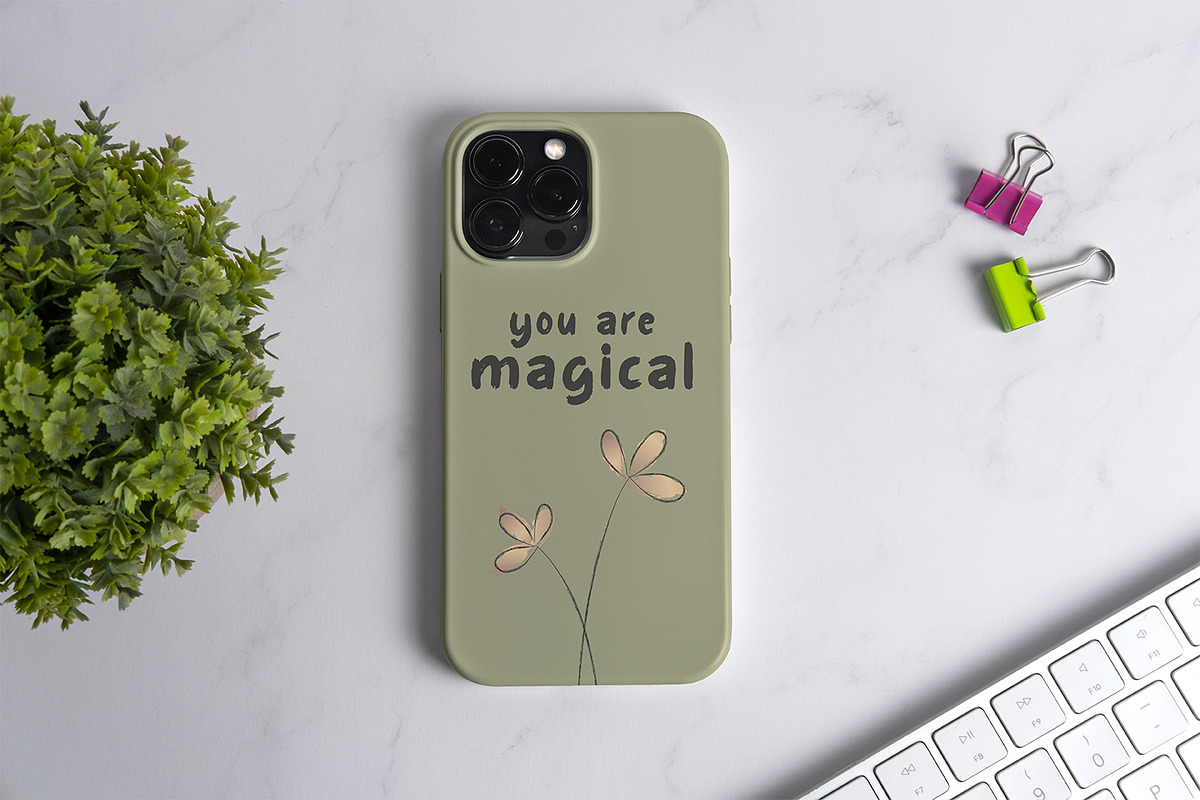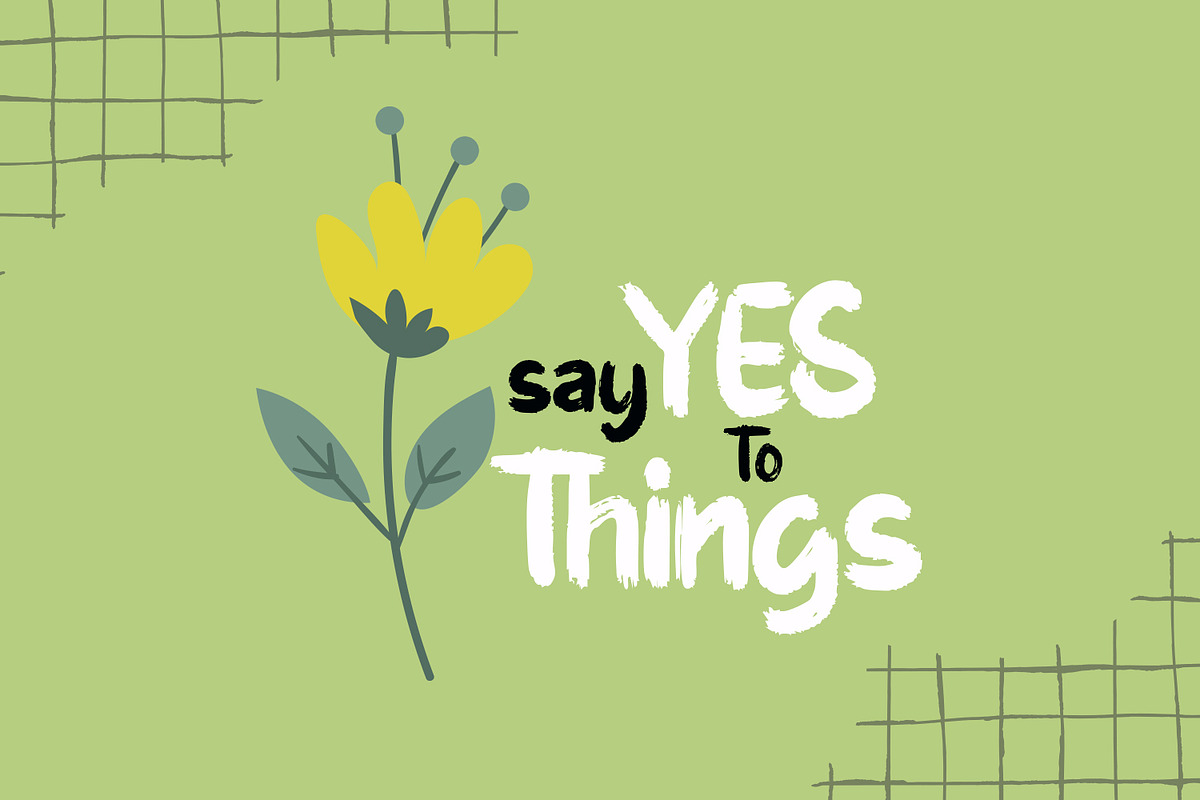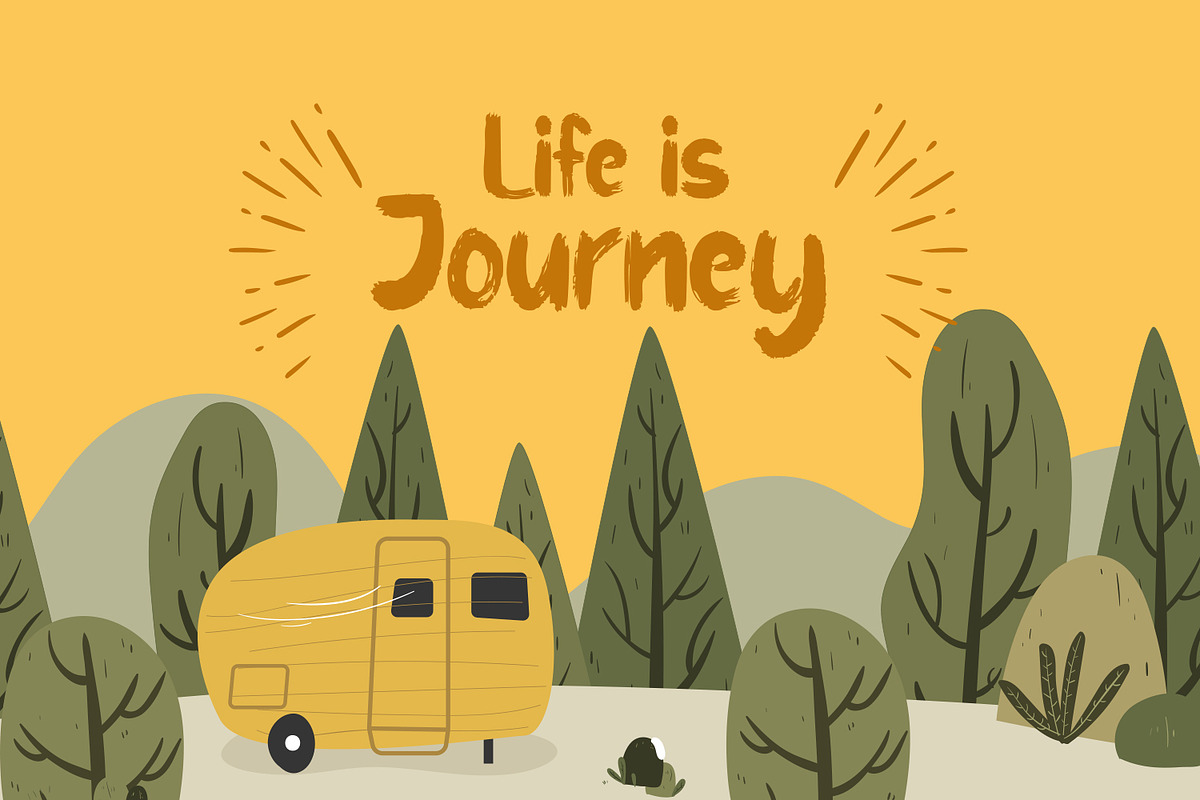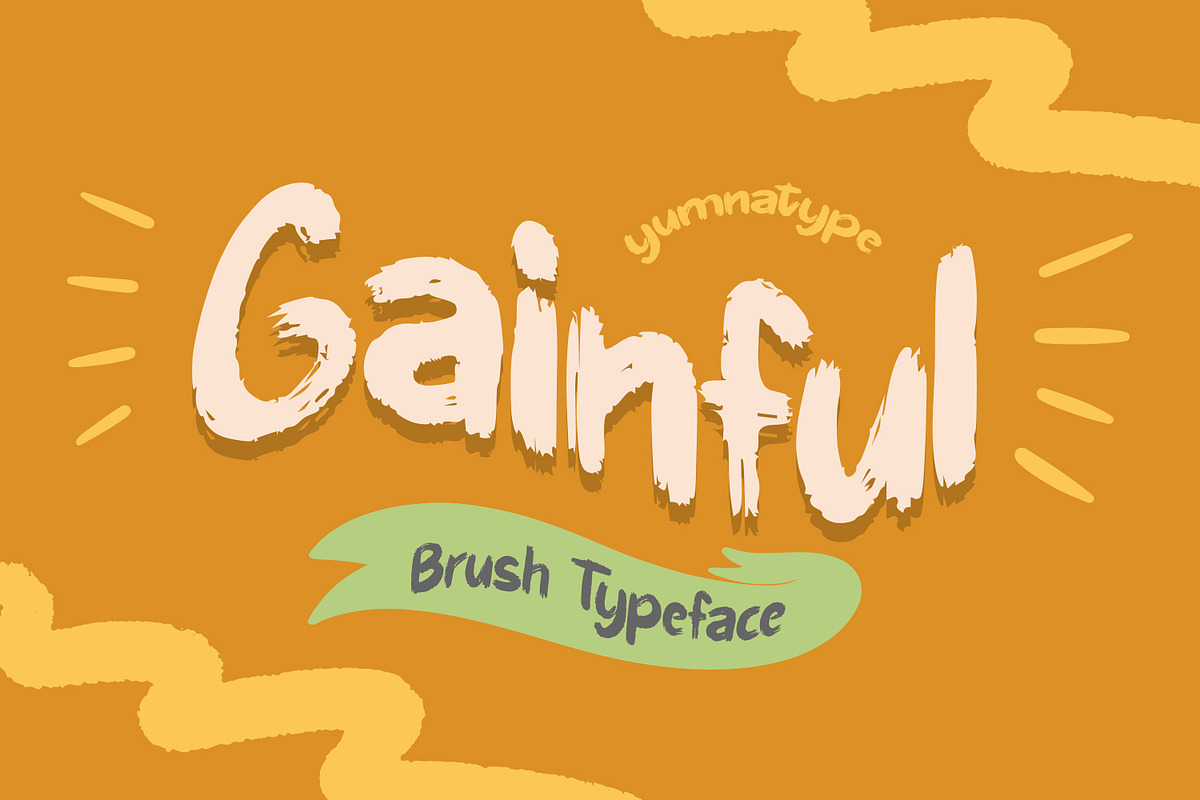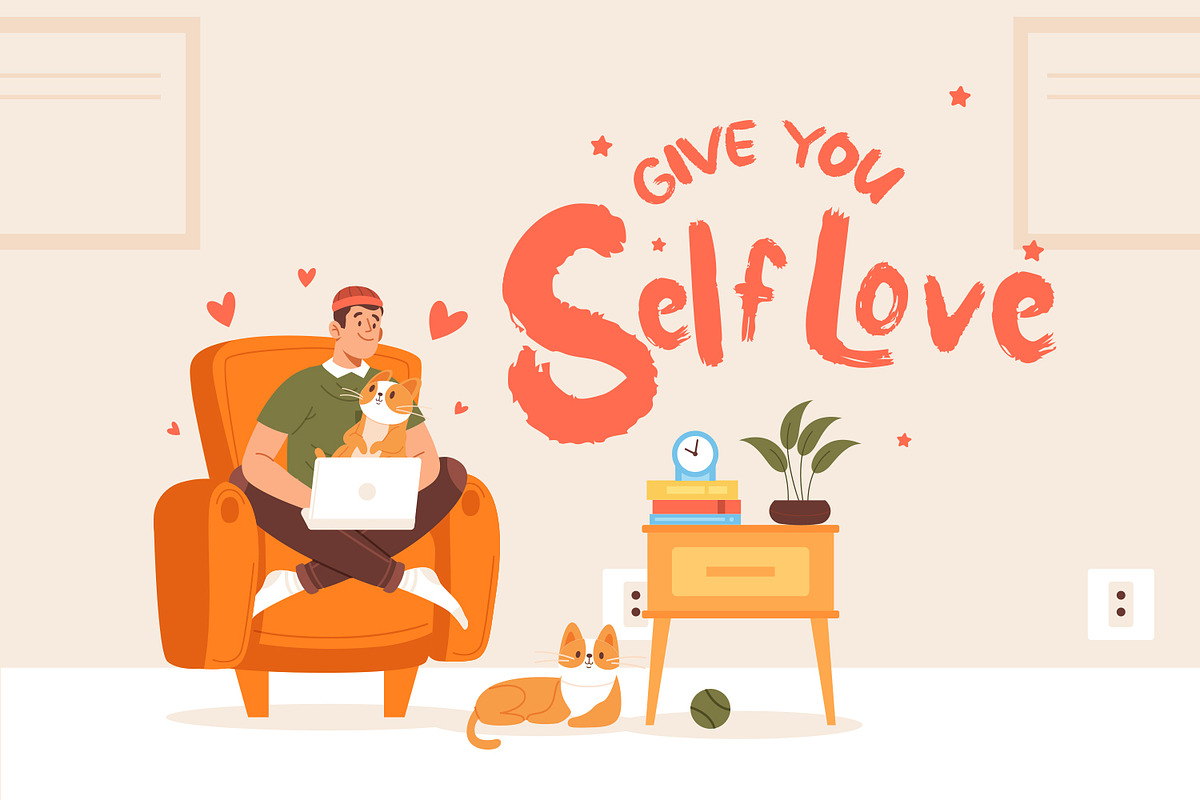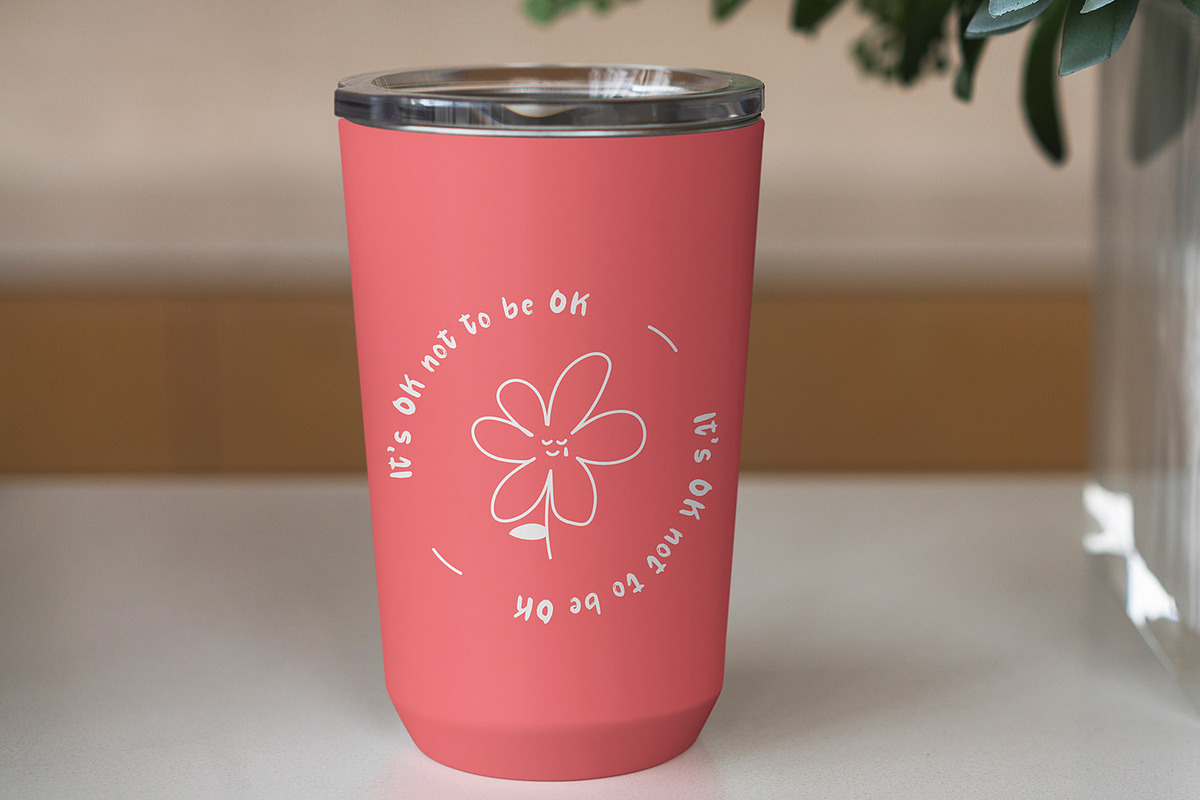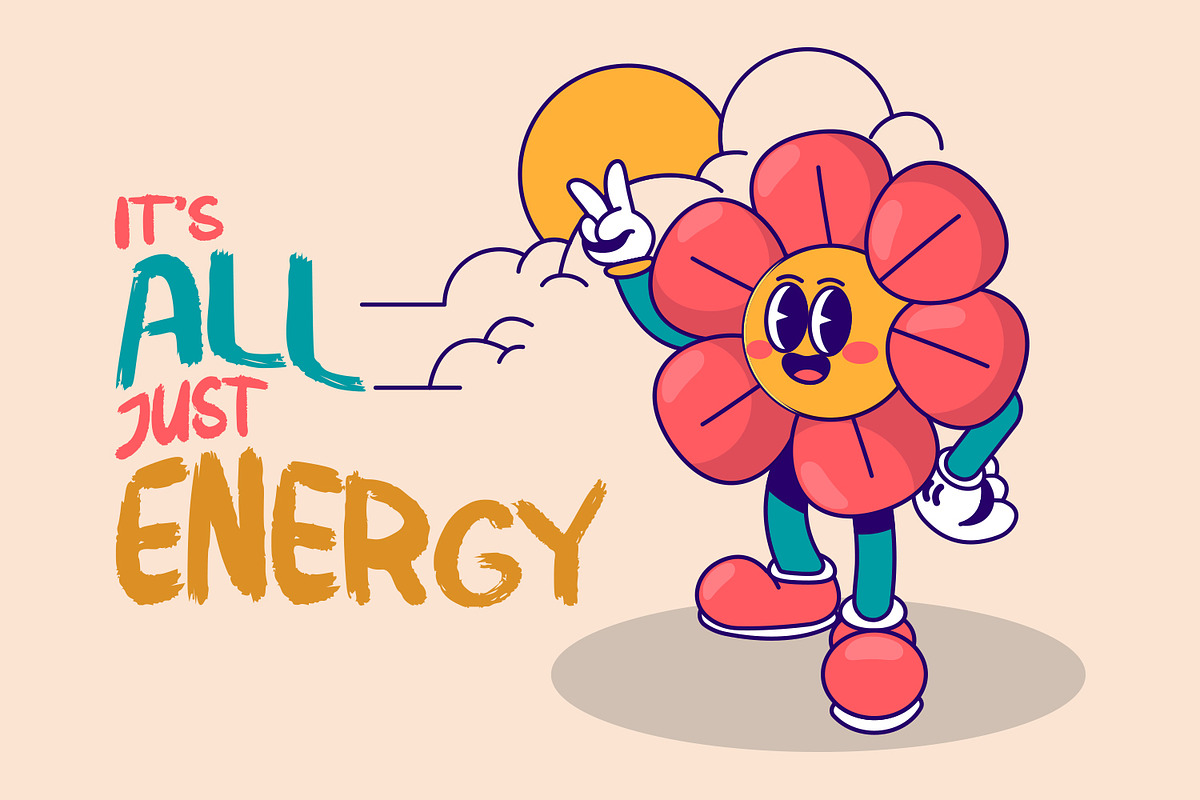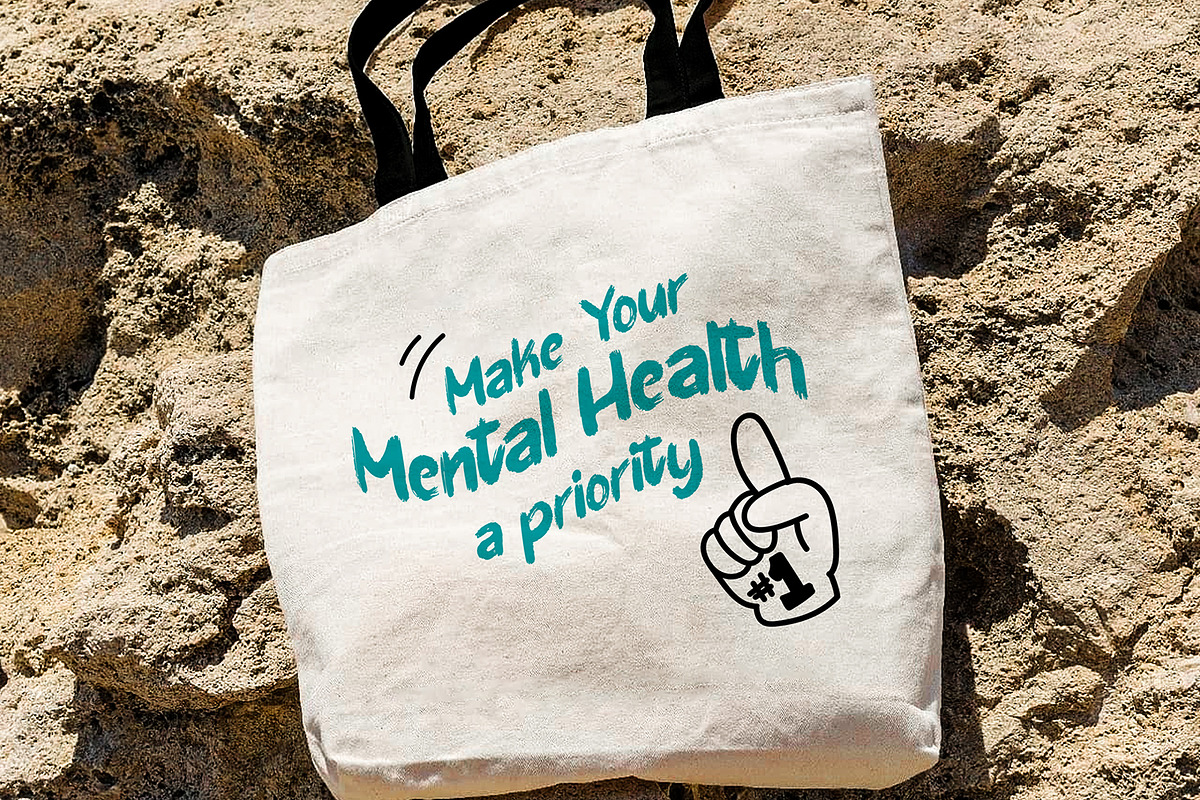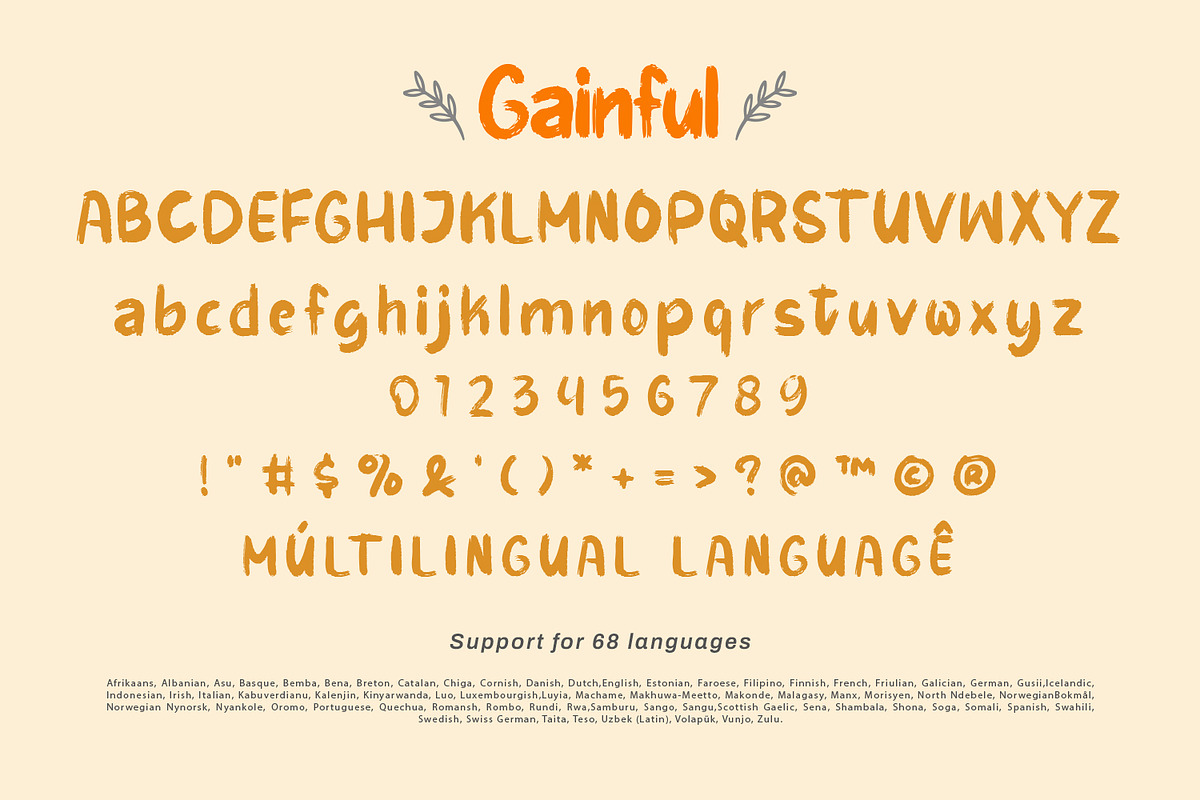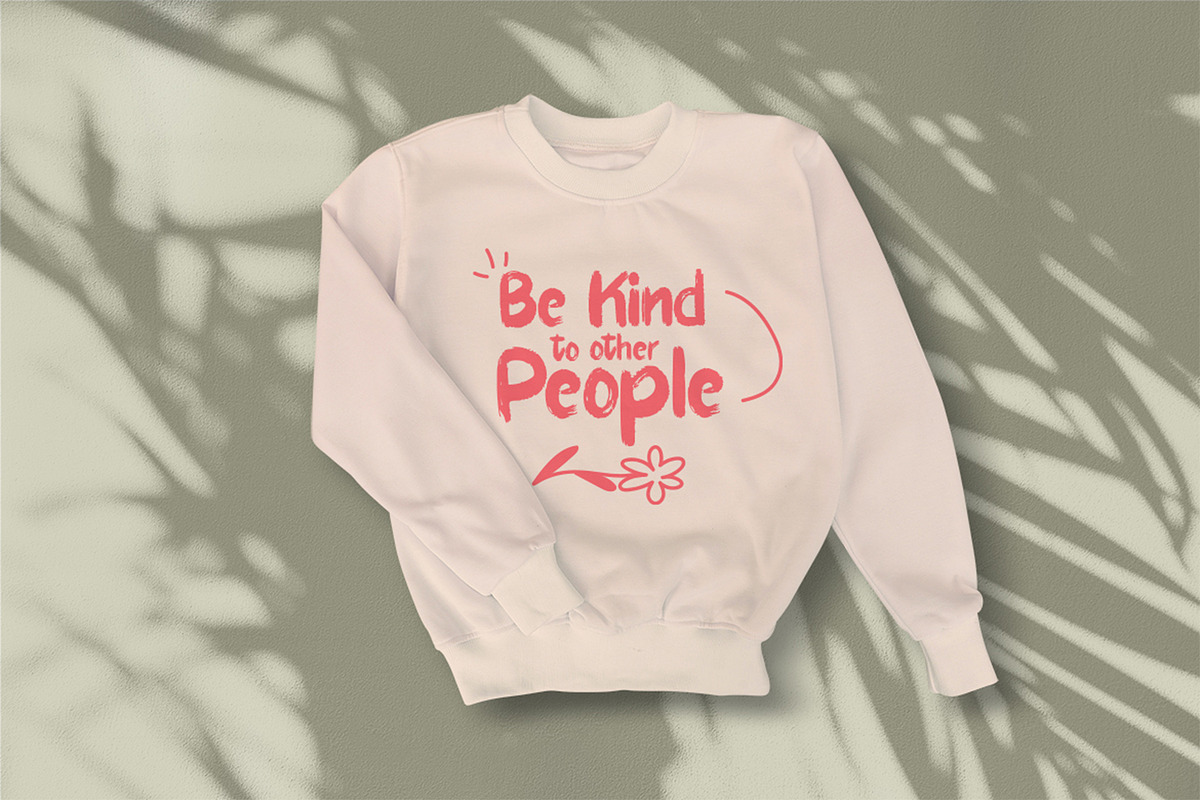
Gainful
Gainful is a dynamic brush font that embodies energy and spontaneity. Each letter in Gainful is crafted with bold brushstrokes, giving it a sense of vitality and movement. The fairly thick weight of the font adds to its bold and confident presence, while the intricate brush details add depth and texture to the overall design.
What sets Gainful apart is its irregular outline, which adds to its handcrafted feel and organic charm. Unlike traditional fonts with straight lines, the outline of Gainful is fluid and dynamic, adding a sense of spontaneity and creativity to your designs. In addition, enjoy the features here.
Gainful fits in headlines, logos, posters, flyers, branding materials, print media, editorial layouts, and many more designs. Find out more ways to use this font by taking a look at the font preview.